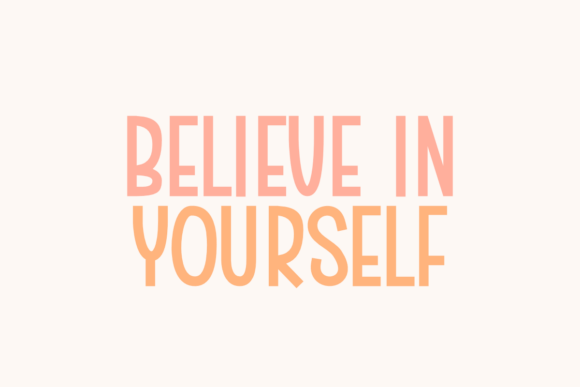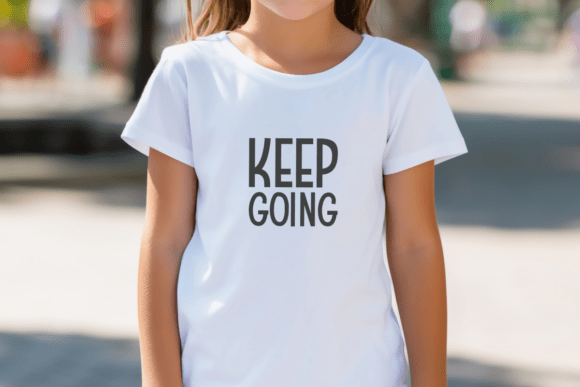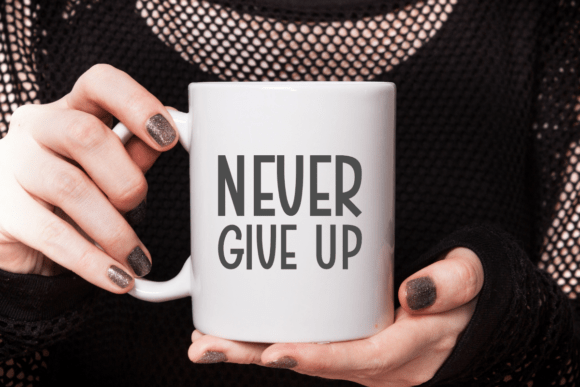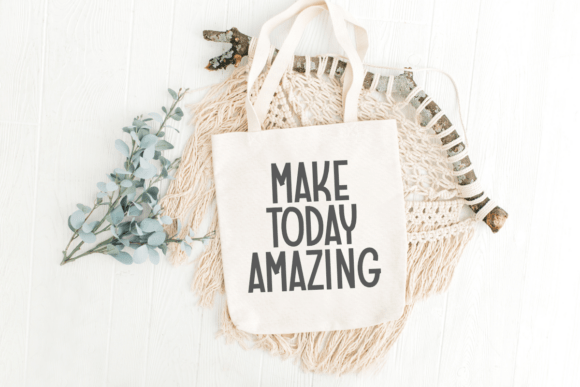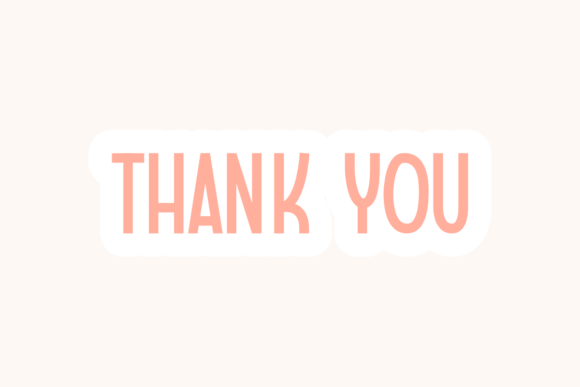
Introduction to Perfect Easter Font
As a designer, you know the excitement of starting a new creative project, and Easter is the perfect time to get creative. You’ve got your favorite coffee, a blank canvas, and the perfect idea – but something’s missing. That’s where the Perfect Easter Font comes in – a delightful addition to your design arsenal that’s sure to bring a smile to anyone’s face. With its whimsical charm and springtime vibes, this font is the ultimate design resource for Easter-themed projects.
Whether you’re designing greeting cards, party invitations, or product packaging, the Perfect Easter Font is a high-quality addition to any design project. And the best part? It’s free to download, making it an accessible resource for designers of all levels. Plus, its transparent background makes it easy to use in any design, from digital to print. So why settle for an ordinary design when you can add a dash of whimsy with the Perfect Easter Font?
With its clean lines, playful letterforms, and pastel-inspired color palette, this font is the perfect way to add a joyful and friendly touch to any creation. So go ahead, give your design project a springtime makeover with the Perfect Easter Font – your clients (and their Easter baskets) will thank you!
Key Features of Perfect Easter Font
- High-quality design: Perfect Easter Font is carefully crafted to provide a beautiful and elegant look for any creative project.
- Transparent background: The transparent background of this font allows for easy integration into any design, ensuring a seamless look.
- High-resolution design: This font is designed at 300 DPI, making it perfect for high-quality prints and large-scale designs.
- Unique Easter-themed characters: Perfect Easter Font features a range of unique Easter-themed characters, including eggs, bunnies, and other spring-inspired designs.
- Perfect for creative projects: This font is ideal for designers working on Easter-themed projects, such as greeting cards, posters, and social media graphics.
Honest Review: Perfect Easter Font
I recently stumbled upon the Perfect Easter Font, and I must say it’s a delightful addition to any creative project. This font is perfect for Easter-themed designs, but its versatility extends beyond just this holiday. With its high quality design and transparent background, it’s an excellent design resource to have in your collection.
- What works well: ✨ The font is highly customizable, and its playful feel makes it perfect for creative projects. The transparent background allows for easy integration with various design elements.
However, I did encounter a few limitations. The font may not be ideal for formal or professional designs, as its playful nature might detract from the overall message.
- Limitations: ⚠️ The font is limited in its use cases, making it more suitable for creative projects and less formal designs.
Overall, the Perfect Easter Font is a great addition to any designer’s collection. Its high quality design, transparent background, and free download make it a valuable resource for creative projects. While it may have its limitations, it’s a great option for designers looking for a unique and playful font.
Tips for Getting the Most Out of Perfect Easter Font
Use the Perfect Easter Font in combination with other design elements to create a unique and eye-catching design. Experiment with different font sizes and colors to add depth and visual interest to your project.
The Perfect Easter Font is perfect for creating Easter-themed designs, such as invitations, banners, and social media posts. It can also be used for other creative projects, such as party decorations, gift tags, and greeting cards.